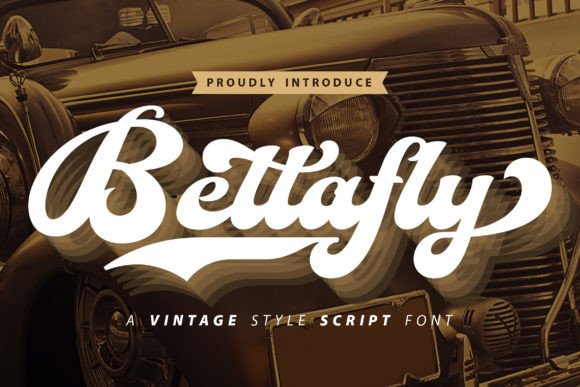
Introducing Bettafly Font, an Enchanting Script Font That Will Captivate Your Designs
Journey into a world of elegance and creativity with Bettafly Font, a captivating script font that will transform your designs into true works of art. This magical font is meticulously crafted with delicate strokes and flourishes, exuding an aura of sophistication and charm. Whether you're a seasoned designer or just starting your creative journey, Bettafly Font is the perfect companion to bring your ideas to life.
Embark on a Typographic Adventure with Bettafly Font
With Bettafly Font, the possibilities are endless. Dive into the world of Instagram and let your creativity shine through your captivating posts. Elevate your DIY projects with exquisite calligraphy scripts that add a personal touch to your handmade masterpieces. Unleash your imagination and let Bettafly Font guide you through a typographic adventure like no other.
Unlock a Treasure Trove of Design Possibilities
Bettafly Font is not just a font; it's an open door to a universe of design opportunities. Its versatility knows no bounds, allowing you to effortlessly create stunning logos that command attention, eye-catching social media graphics that captivate your audience, and unforgettable website designs that leave a lasting impression. With Bettafly Font, your designs will radiate a timeless elegance that sets them apart from the ordinary.
Experience the Magic of Bettafly Font Today
Step into the realm of design magic with Bettafly Font and let your creativity soar. Its enchanting script will transform your words into captivating expressions, adding a touch of elegance to every project you undertake. Join the growing community of designers and creatives who have discovered the power of Bettafly Font. Let your imagination run wild and create designs that leave an indelible mark on the world.